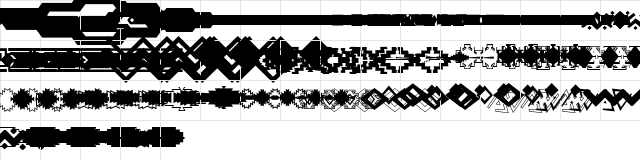
SC Southwest Dividers Regular
Design Context for SC Southwest Dividers Typeface
SC Southwest Dividers is a composed and adaptable typeface that performs quietly and consistently across a wide range of design contexts.